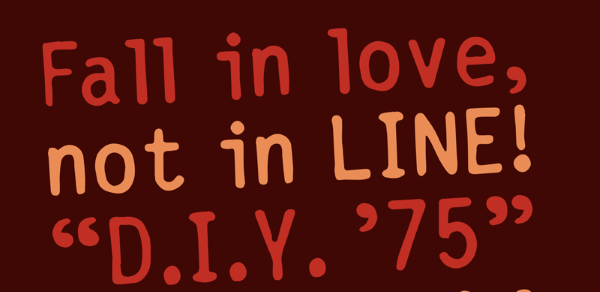
D.I.Y. ’75 Font
D.I.Y. ’75 by Tension Type is a free typewriter font with a genuinely specific and fascinating origin — recreated from scans of an early 1970s band fanzine for a vinyl album booklet project, its letterforms carry the raw, paste-up energy of DIY underground publishing at its most authentic. This typewriter font captures the uneven baselines, mixed impressions, and grassroots spirit of hand-assembled zine typography like almost nothing else available. Free for personal use; commercial via TensionType.com.